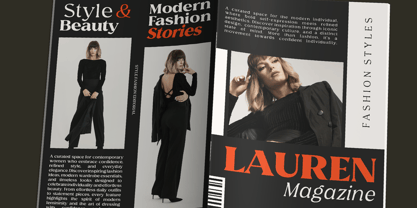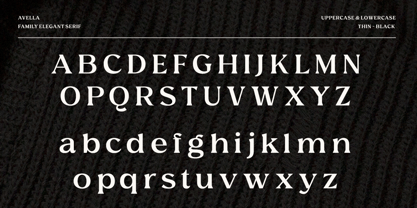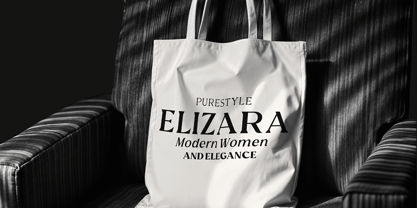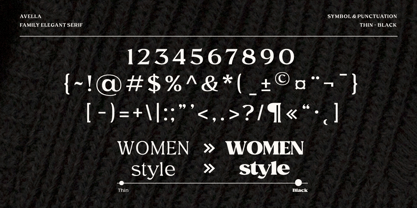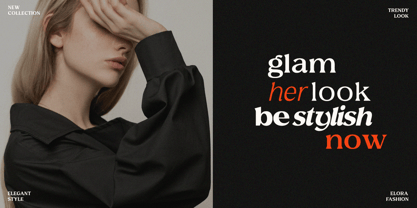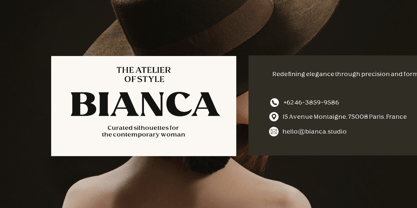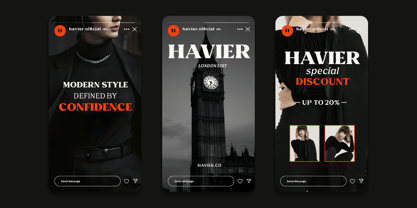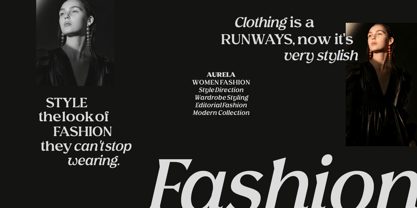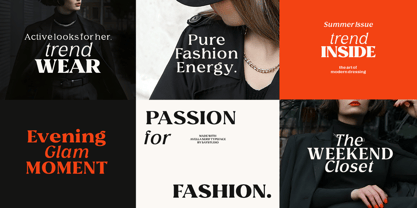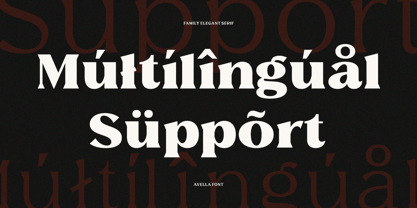
Avella
The Avella Font Family was designed by Mussyayin and published by Say Studio. Avella contains 18 styles and family package options. More about this family
Avella is a modern, elegant serif font family designed to exude sophistication across a wide array of creative applications. With its refined structure and high-contrast strokes, Avella embodies the essence of luxury and professionalism. Each letterform is meticulously crafted to achieve a balanced and graceful appearance, making it ideal for high-end visual design. As a complete family, Avella provides multiple weights ranging from thin to black, complemented by beautifully styled italics. This versatility empowers designers to develop dynamic and cohesive typography systems—perfect for editorial layouts, branding, and premium packaging. The seamless transitions between weights guarantee consistency while offering full creative control. Ideal for fashion, magazines, corporate branding, and luxury design, Avella distinguishes itself with its timeless elegance and modern flexibility. It is a dependable choice for designers aiming to create impactful, stylish, and professional visual identities.